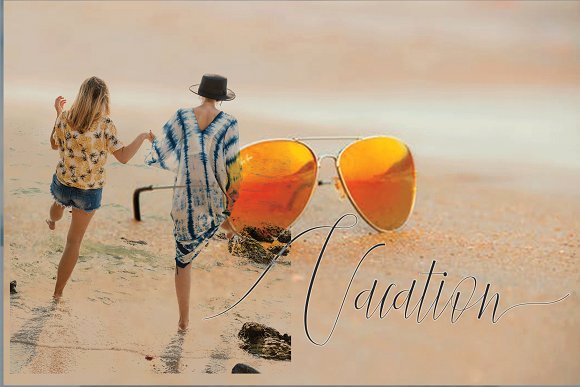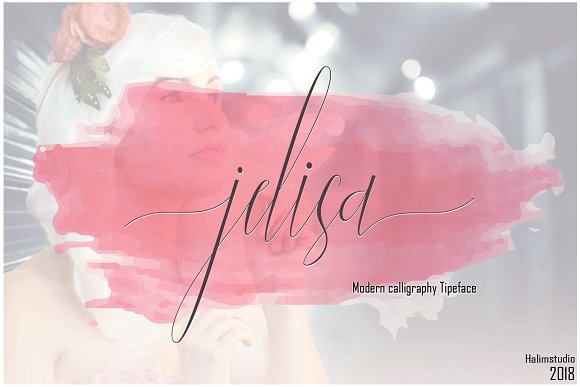
Jelisa Calligraphy
Jelisa Calligraphy Font
I try to present a font with an interesting touch. It comes in a classic form with a modern twist. This font is suitable for projects such as vintage logos, fashion labels, special card headers, badges, food packaging designs, especially wine labels. This font has a different style in the classic form to make it easier to choose the desired style. This font Also available some alternative styles that you deserve to try.